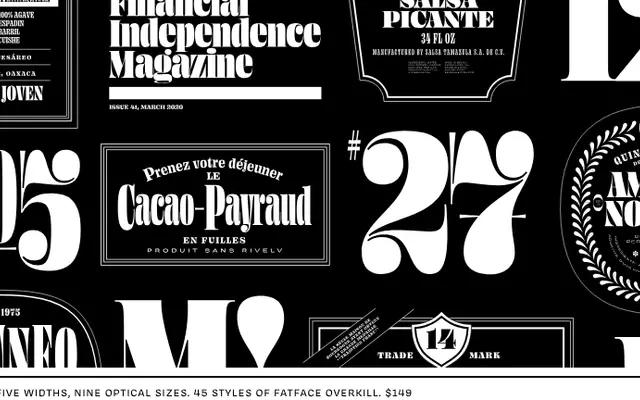
Ohno Fatface
OH no Type · James Edmondson · 2020
Ohno Fatface specimen from OH no Type
A 45-style fatface family with five widths and nine optical sizes, tracing a direct line from early 19th-century Fann Street display types to contemporary editorial and poster work.
Built across five widths — Normal, Narrow, Condensed, Compressed and Squished — each with nine optical sizes, the family adjusts stroke contrast and spacing as sizes decrease so the type remains functional well below headline scale. A variable font is included with the full package, making the width and optical-size axes accessible for layout work. The design was drawn between 2017 and 2020 and sits squarely in the revival of 1970s-influenced fatface aesthetics that defined much of that period's typographic output.
A high-contrast display serif in the tradition of early 19th-century fatface types from the Fann Street foundry, extended across five widths and nine optical sizes for contemporary use.